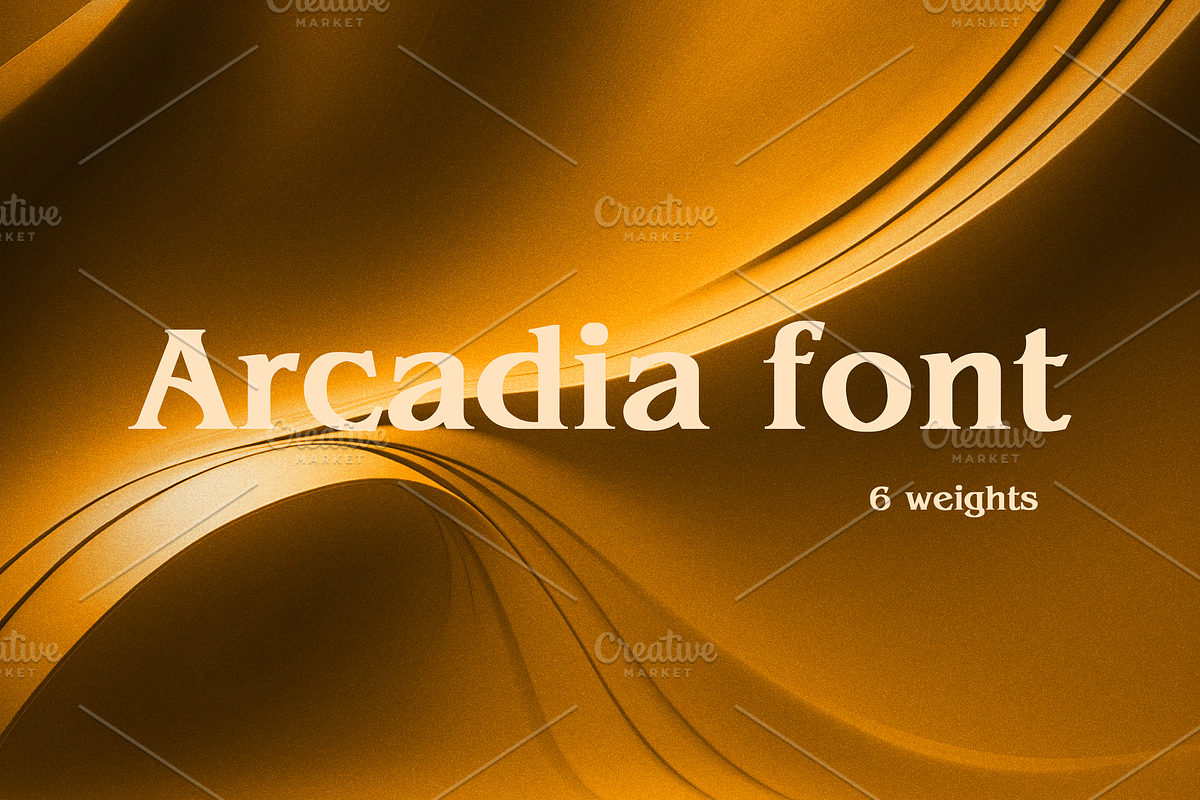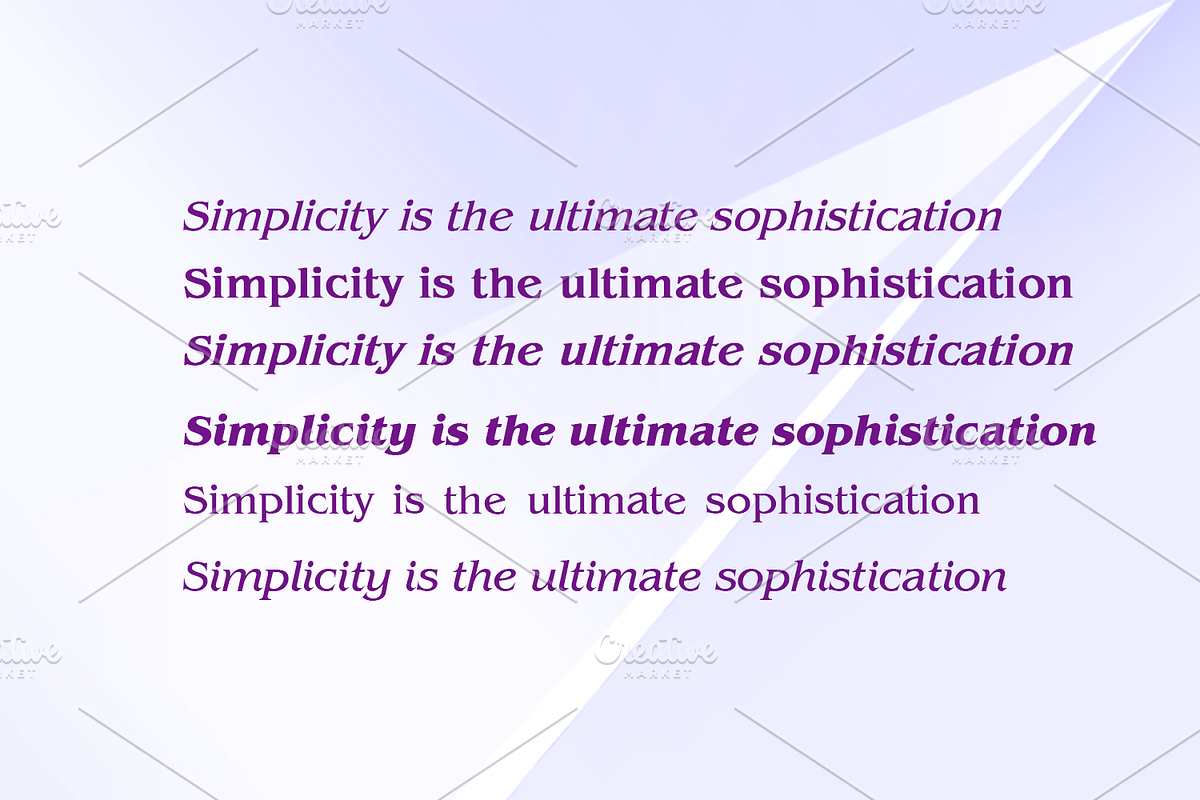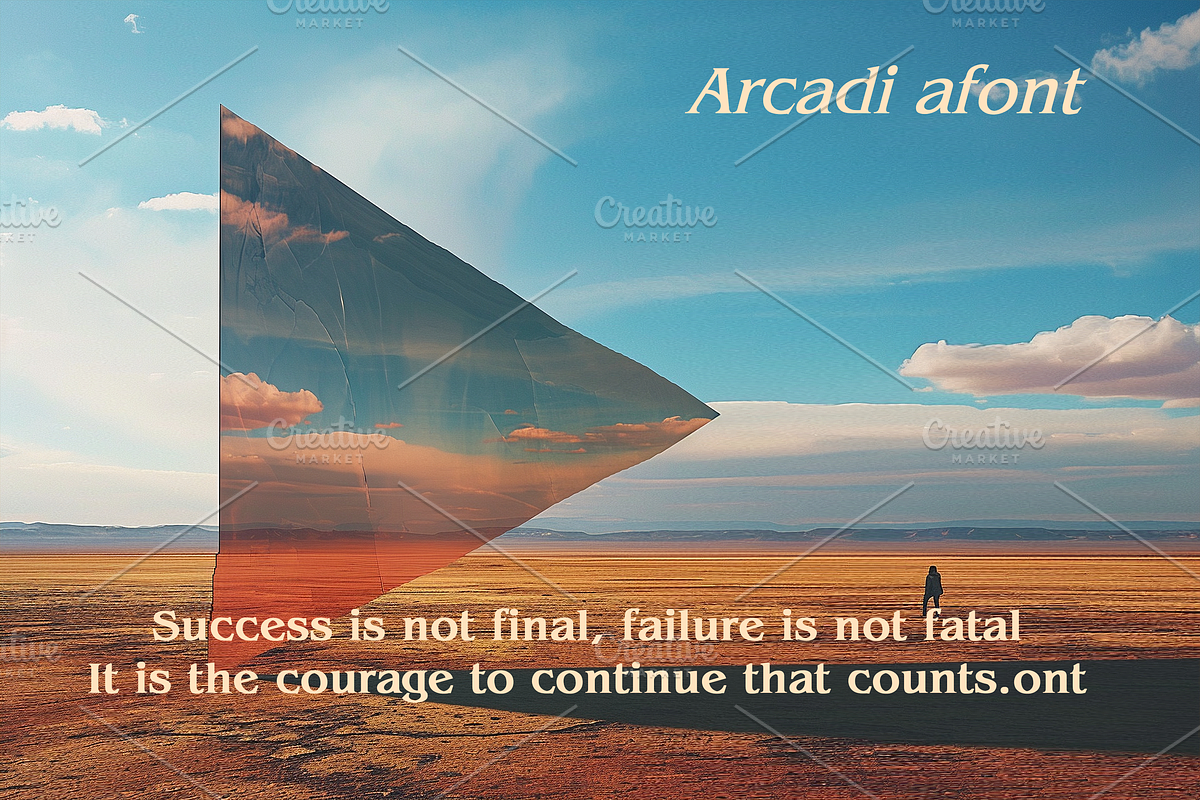
Arcadia font-06-24
is a distinctive serif typeface characterized by its ornate, vintage style. It features high contrast between thick and thin strokes, with flared and often exaggerated serifs, giving it a decorative and elegant appearance. The font exudes a retro, Art Nouveau-inspired feel, often used for designs that aim to evoke a sense of nostalgia or classic elegance.